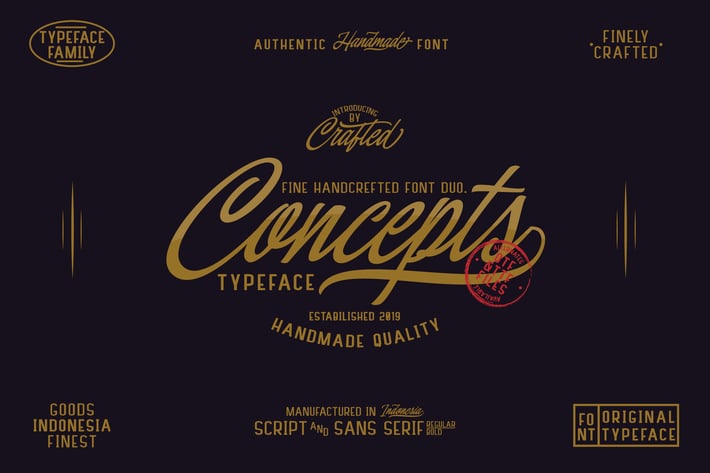
Concepts Font Family
Concepts Font Family is a handmade vintage script, sans serif and sans serif bold. Inspired by classic western culture, custom culture motorbikes and combine with vintage touches. There are so many perfect fonts to integrate into your design, especially in vintage designs. With the beauty of this font package, this font is great for logos, badges, clothes, posters, and more. This font comes with opentype and truetype features and also many alternative styles to enhance your design.
Basic Latin A-Z and a-z
Symbols
Stylistic Set